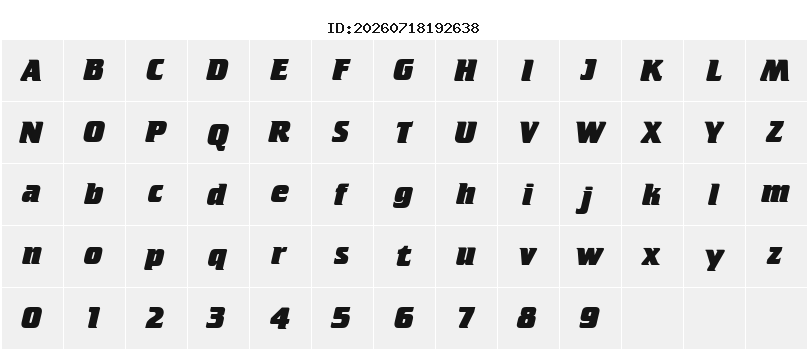
• Font Name: Crillee Extra Bold Italic
• Full Font Name: Crillee Extra Bold Italic Plain
Crillee Extra Bold Italic.ttf is a modern, elegant sans-serif font designed for ultimate readability and visual harmony. Perfect for branding, headlines, web design, and print materials.